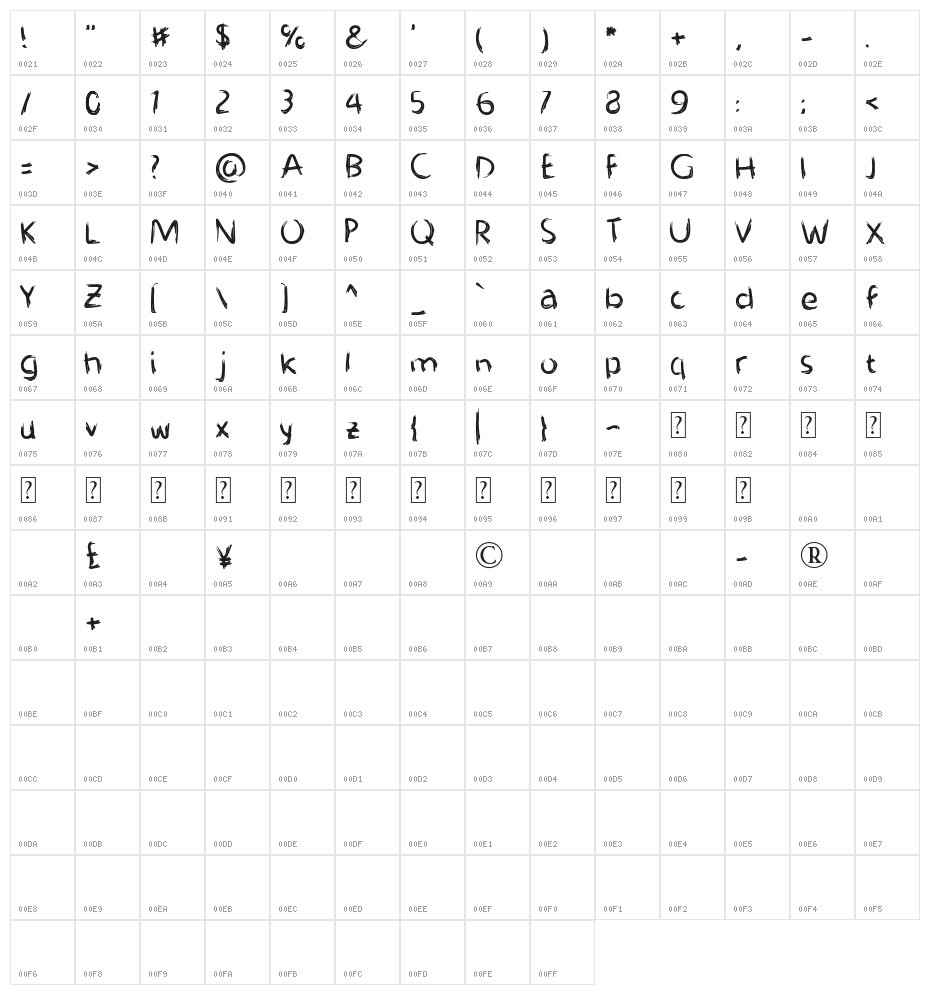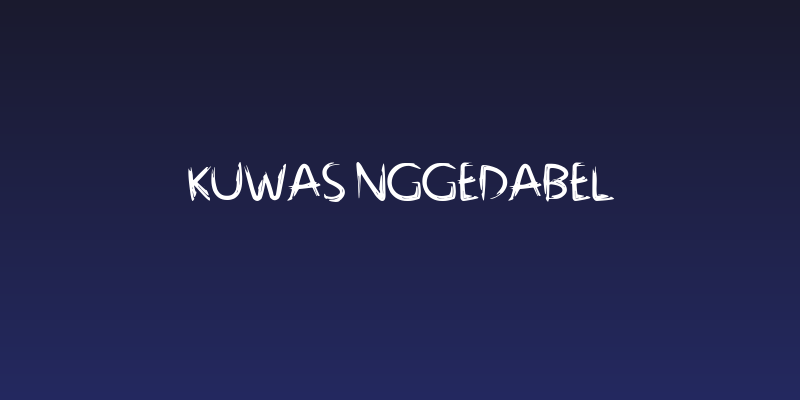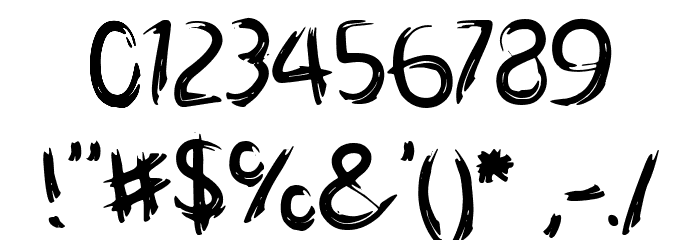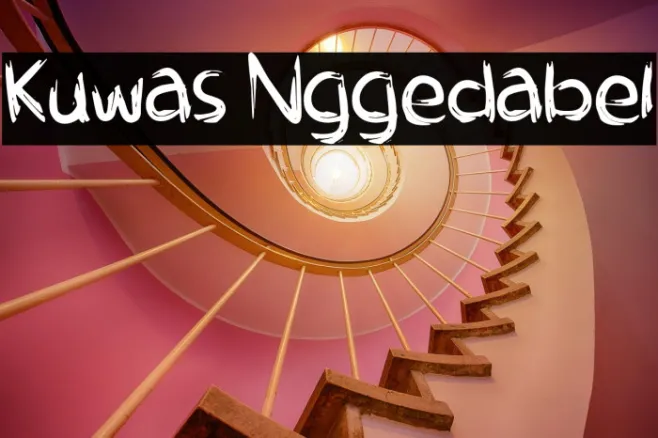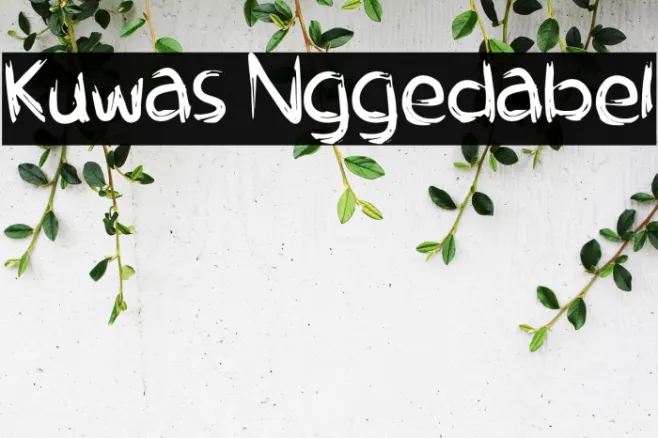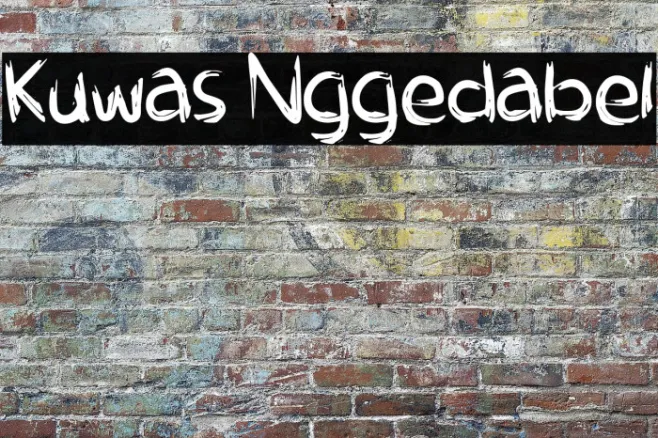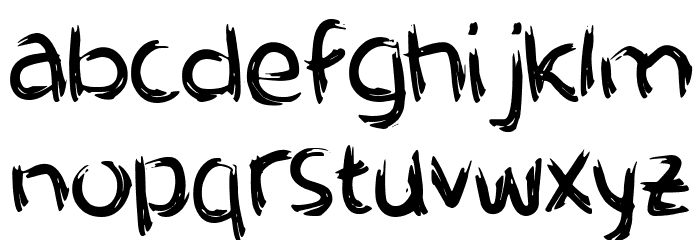
Kuwas Nggedabel Font
Kuwas Nggedabel Description
This font exhibits a bold and expressive style, characterized by its brush-like strokes that convey a sense of energy and dynamism. The letters have an irregular, hand-drawn appearance, with varying stroke widths that create a lively texture. The uppercase and lowercase letters maintain a consistent style, while the numbers and special characters integrate seamlessly with the overall design. This font's unique aesthetic makes it stand out, offering a creative and artistic flair that is both modern and edgy.
| Overall Style | Modern, Artistic |
| Proposed Projects | Ideal for artistic projects, posters, album covers, and branding that seeks a creative and bold statement. |